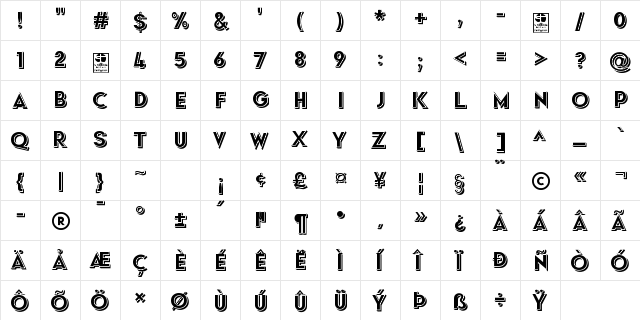
Typo Formal Shadowed Demo Regular
| Foundry | StudioTypo |
| Designer | Mehmet Abac |
Design Context for Typo Formal Shadowed Demo Typeface
Typo Formal Shadowed Demo brings ornamental detail and strong personality to headlines and identities, where visual impact matters more than quiet functionality.
Font Pairing: Pair with a clean neutral sans-serif for body copy to let Typo Formal Shadowed Demo's character lead without overwhelming the composition.
Pro Tip: Use Typo Formal Shadowed Demo exclusively at display sizes — it was designed to be seen, not read at length. Let a neutral companion handle body copy.